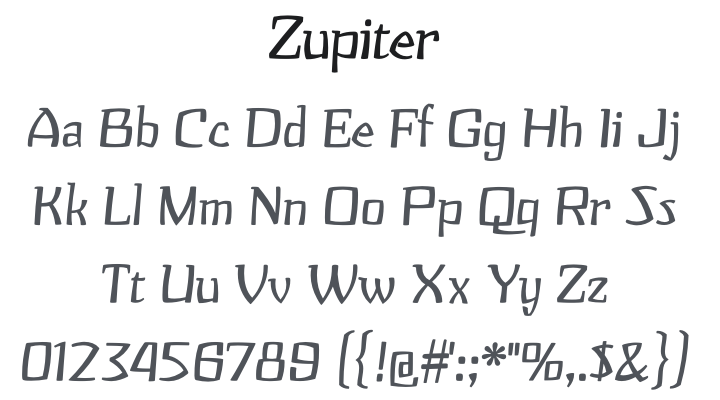
Zupiter Font
About Zupiter
Zupiter is a casual, slightly slanted display serif typeface with quirky, hand-drawn letterforms where strokes taper and splay at unexpected angles — each character feels loosely sketched with a confident, slightly unruly pen. The result is warm, eccentric, and full of personality without feeling sloppy. Perfect for indie branding, editorial headlines, children's books, quirky café signage, and any design needing a friendly, offbeat handcrafted charm.